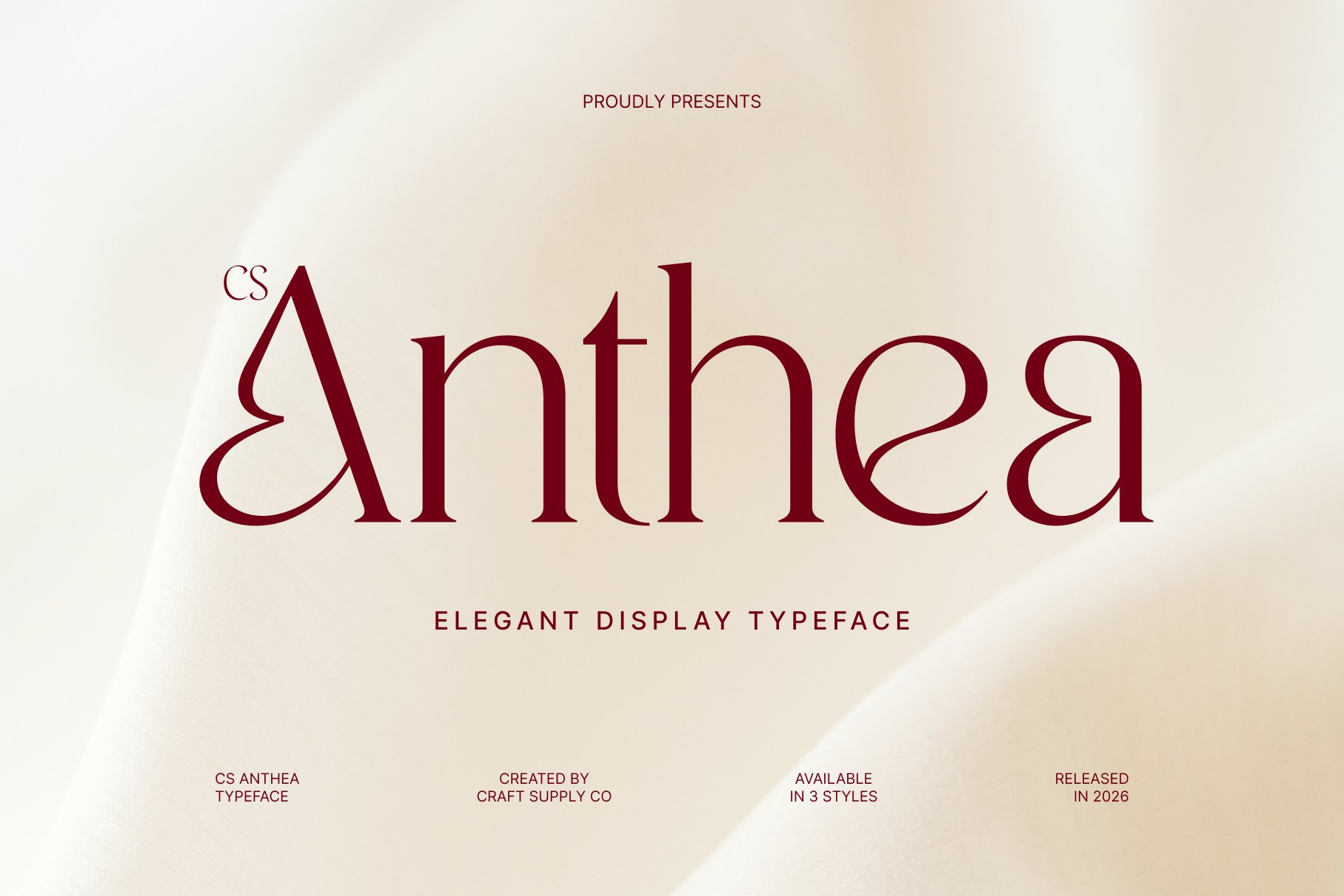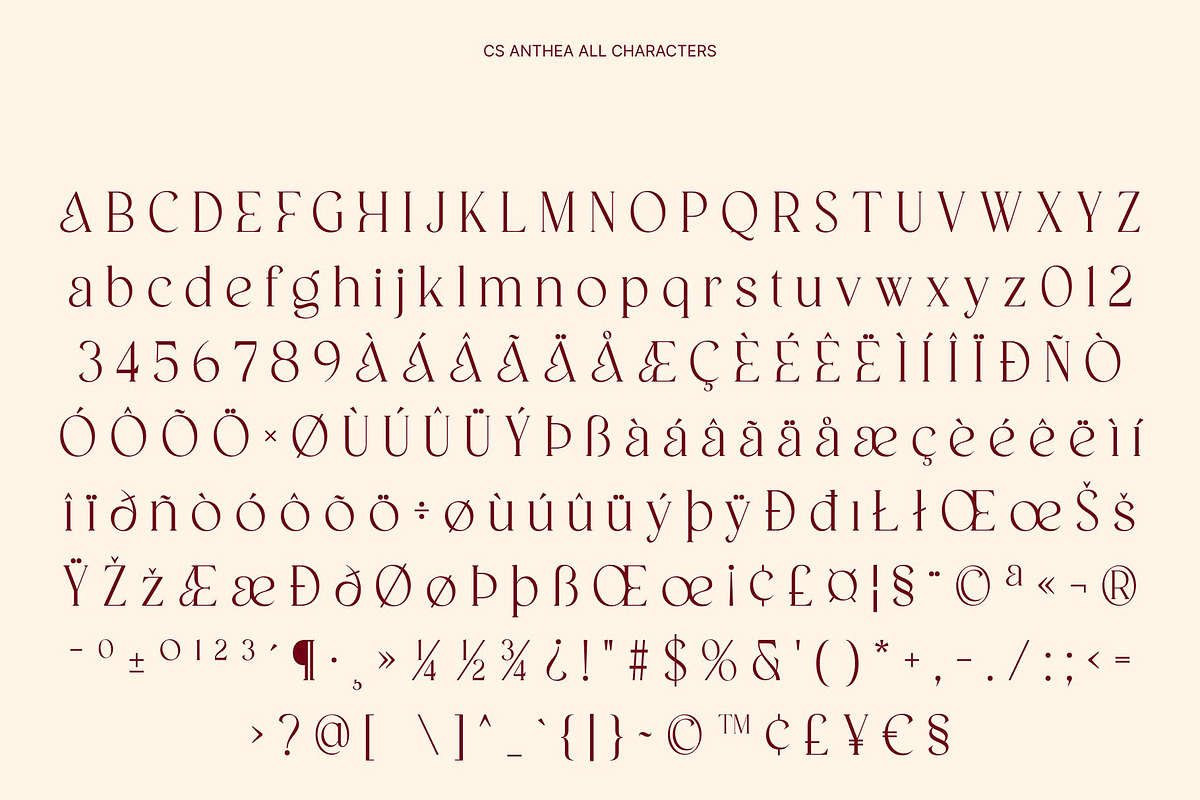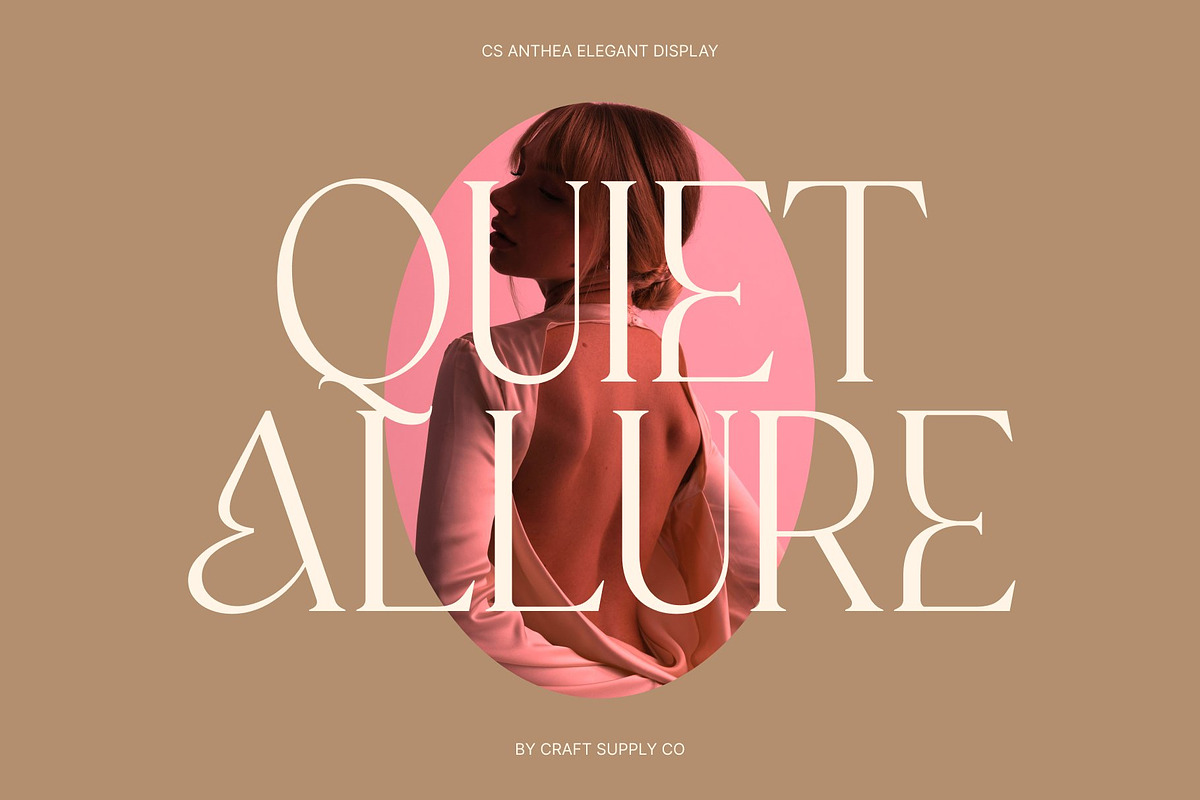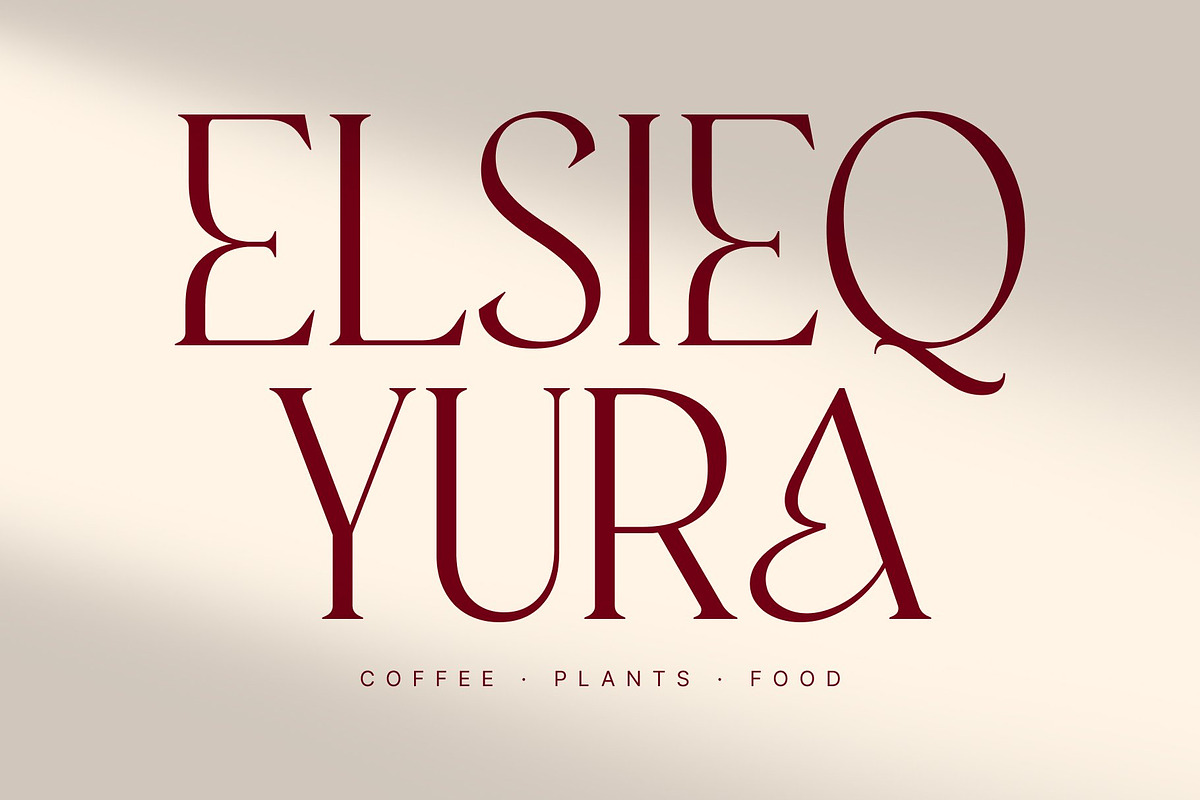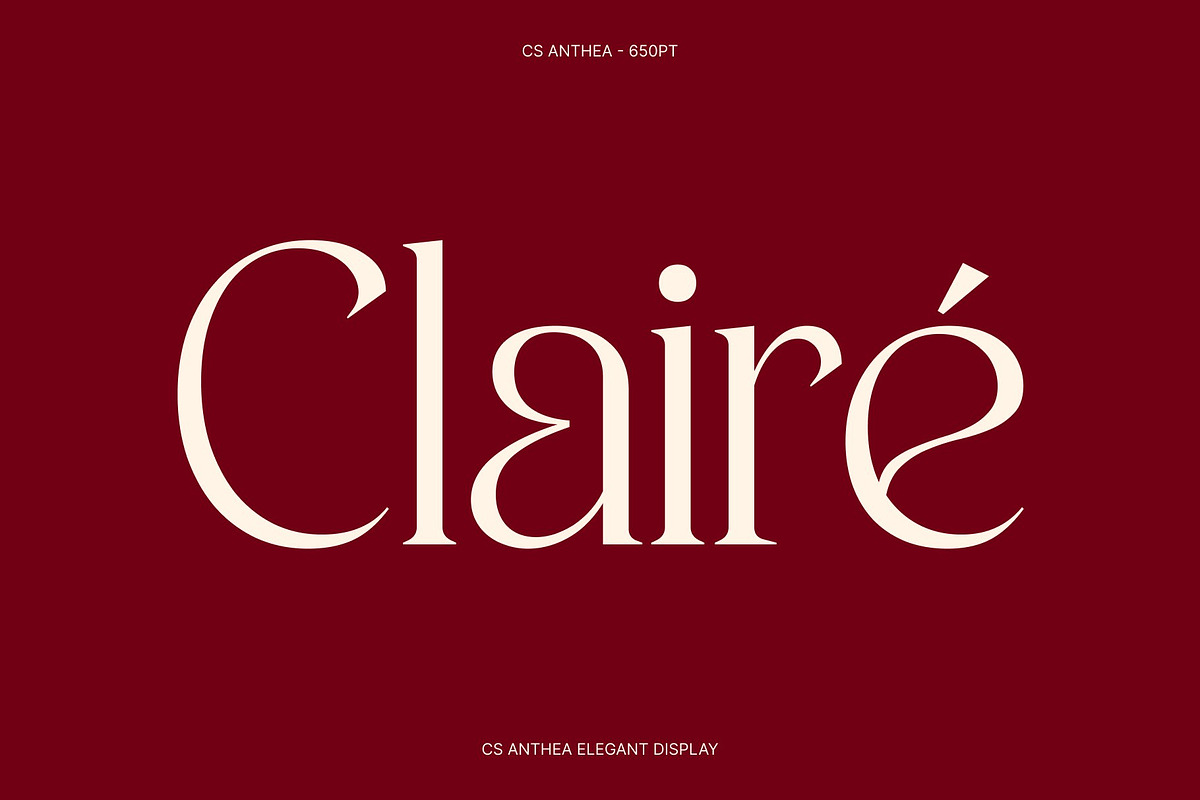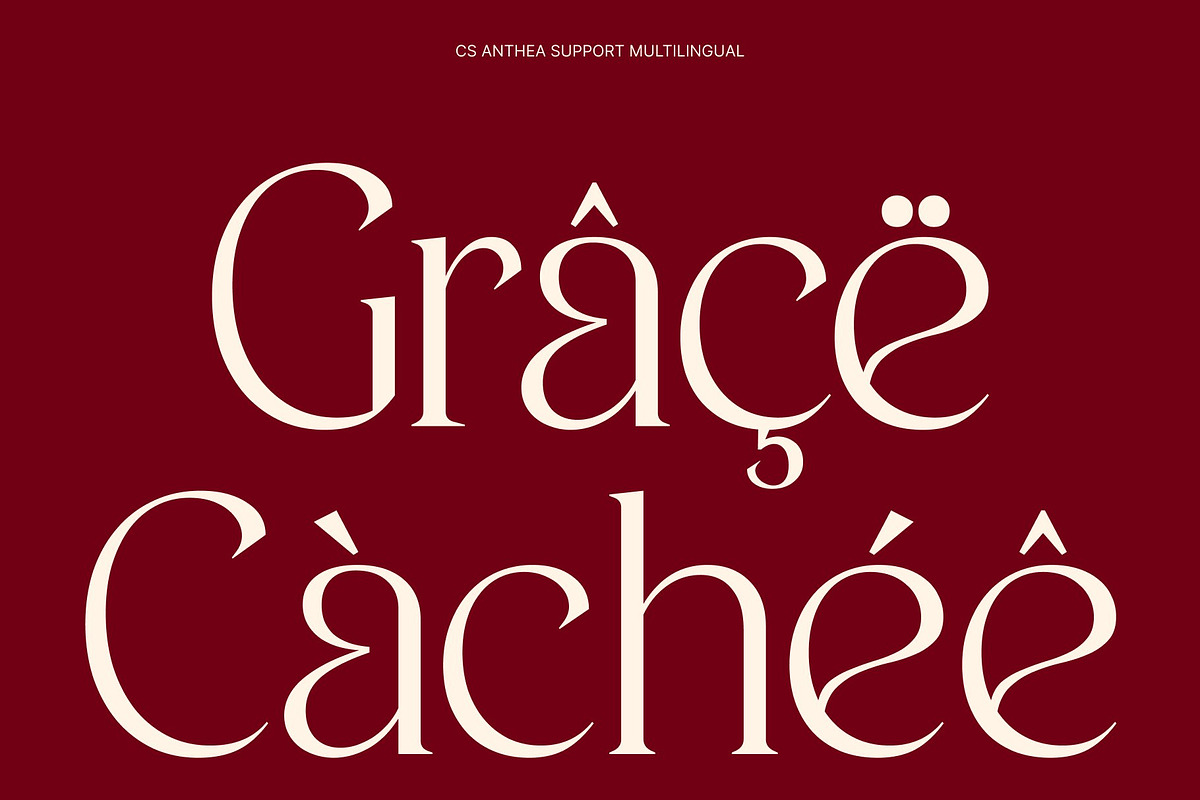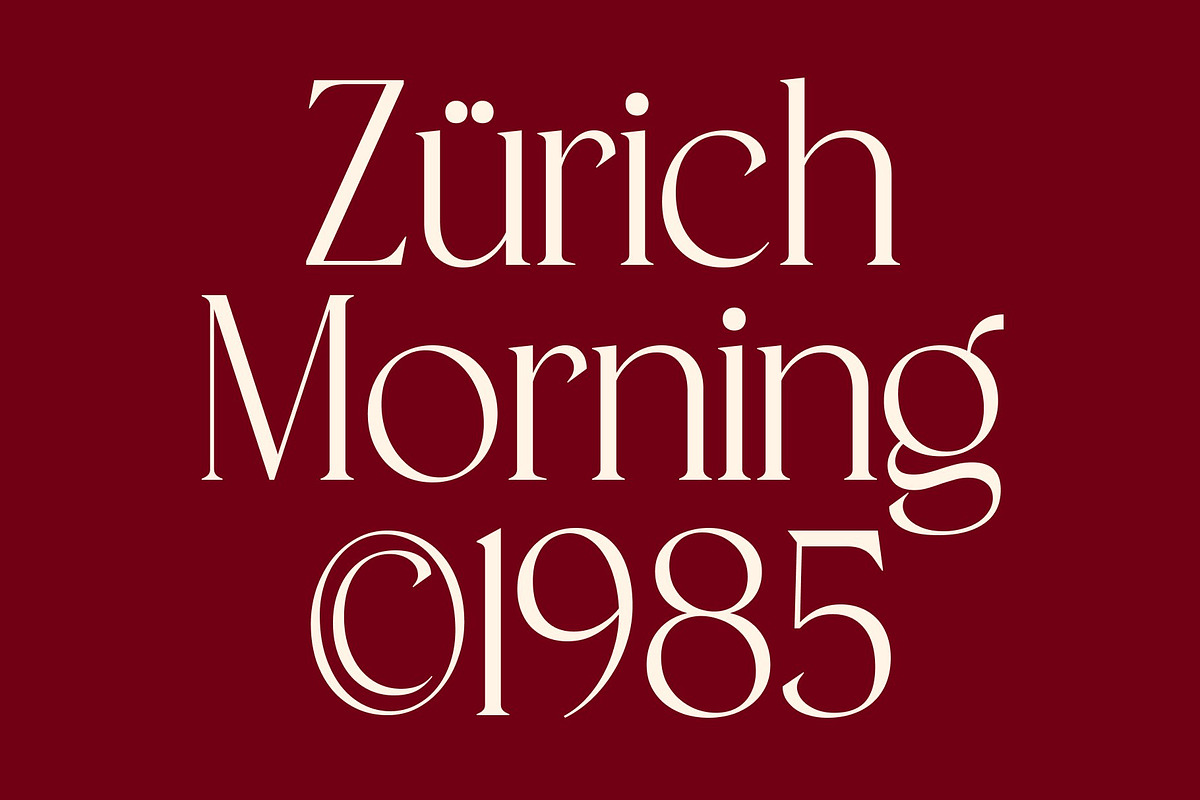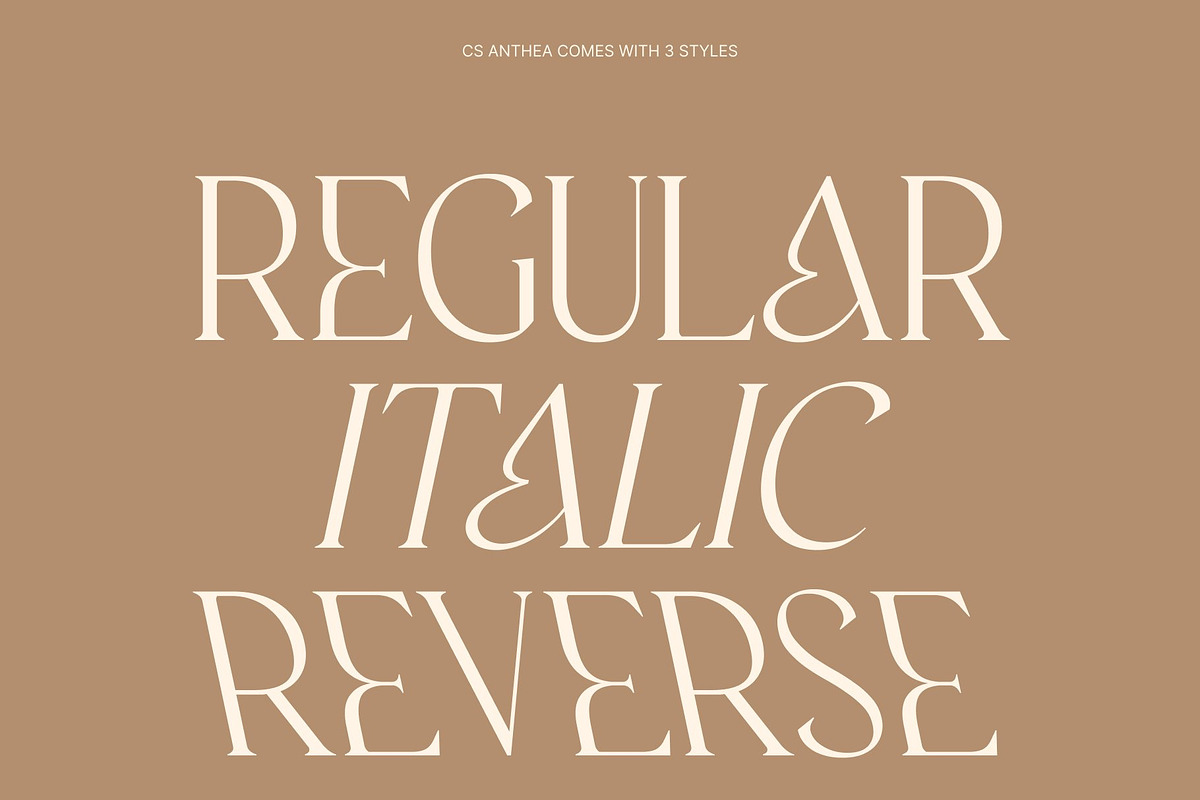
CS Anthea – Elegant Serif Font
CS Anthea – Refined Elegance with Timeless Sophistication
Elegant Serif Font with High-End Character This is an elegant serif font designed to deliver a refined and luxurious visual experience. Its graceful curves and carefully crafted letterforms create a high-end appearance that feels polished and sophisticated. Built on classic serif foundations and enhanced with modern styling, offers a timeless aesthetic that elevates any design with quiet confidence and elegance.
Refined Curves with Stylish Detail The beauty of this font lies in its smooth curves and balanced proportions. Each character is shaped with precision, blending soft transitions with structured serifs to achieve a harmonious and stylish look. These refined details add depth and elegance, making the font feel exclusive and thoughtfully designed. The result is a serif typeface that communicates quality, professionalism, and visual refinement.
Classic Influence with Modern Nuance This font seamlessly blends classic serif tradition with stylistic and modern nuances. This fusion allows the font to feel timeless yet contemporary, making it highly adaptable across a wide range of design contexts. Its elegant tone supports sophisticated storytelling while maintaining strong readability, making it suitable for both display and extended text use.
Perfect for Editorial, Fashion, and Branding Designed for premium applications, this font is perfectly suited for advanced book typography, editorial layouts, packaging, fashion visuals, and branding projects. Its refined serif structure enhances headlines, body text, and logos with a sense of luxury and authority.
- CS Anthea Regular
- CS Anthea Italic
- CS Anthea Reverse Italic